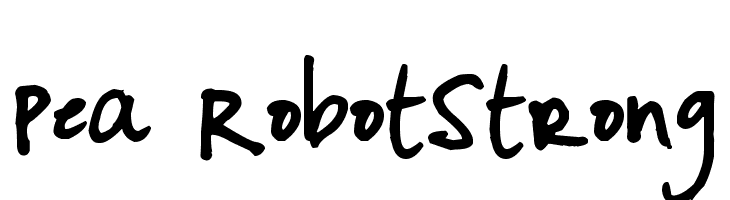
A playful, handwritten font with bold strokes and medium contrast.
A playful, handwritten font with a casual and dynamic style.
A playful, casual handwritten font with uneven strokes and a friendly vibe.
A playful, handwritten font with bold strokes and a casual style.
A playful, handwritten font with fluid and dynamic strokes.
A playful, handwritten font with irregular, spontaneous strokes.
A playful, informal handwritten font with bold, irregular strokes.
A playful, casual handwritten font with uneven strokes and a relaxed style.
A playful, handwritten font with bold, irregular strokes and a casual vibe.
A playful, casual handwritten font with uneven strokes.